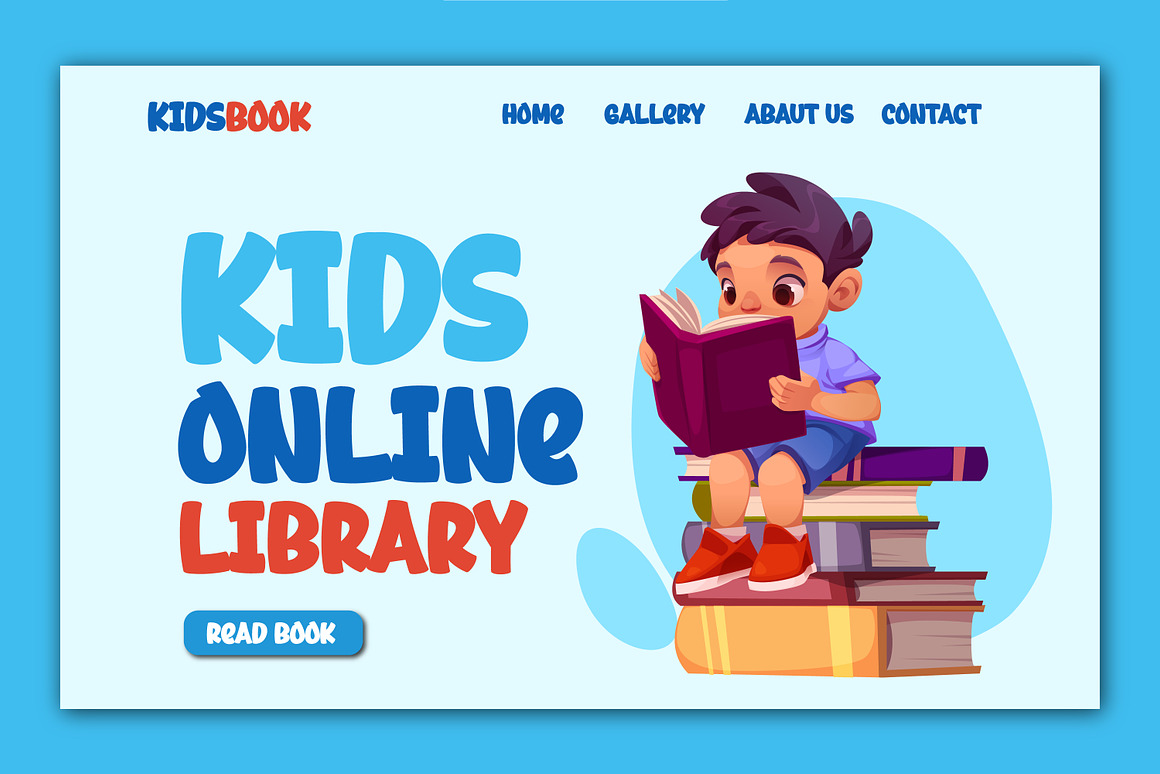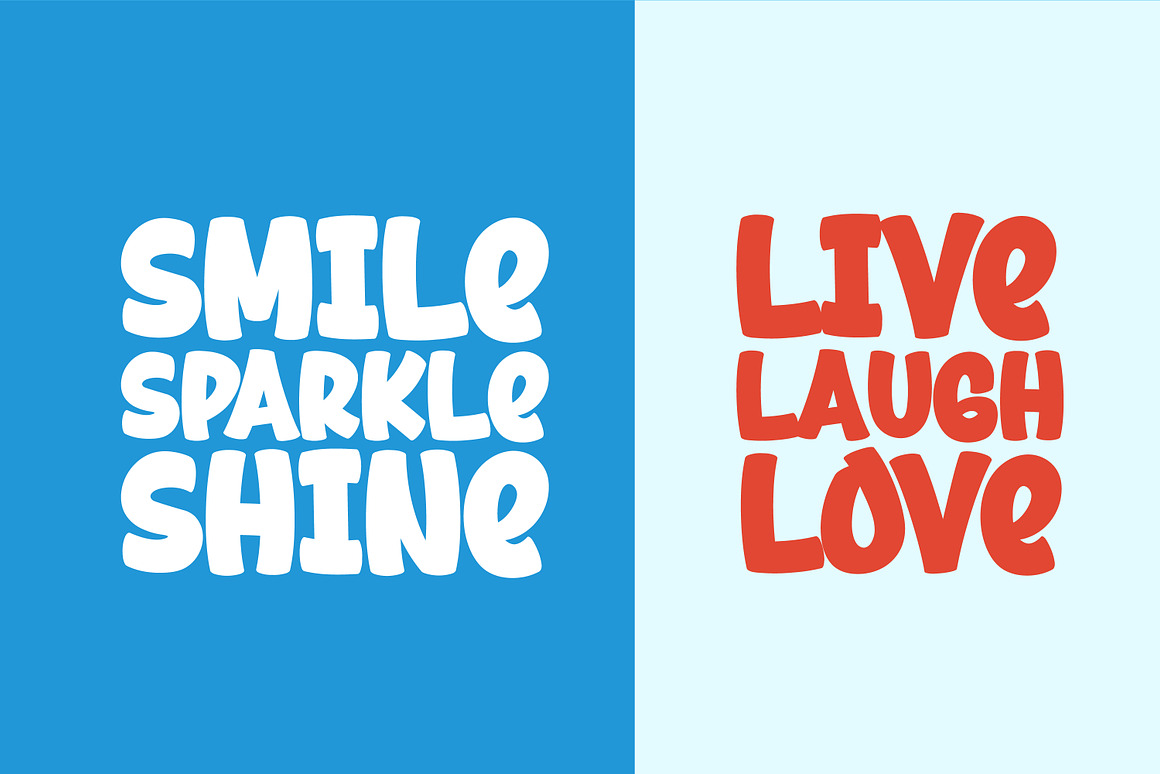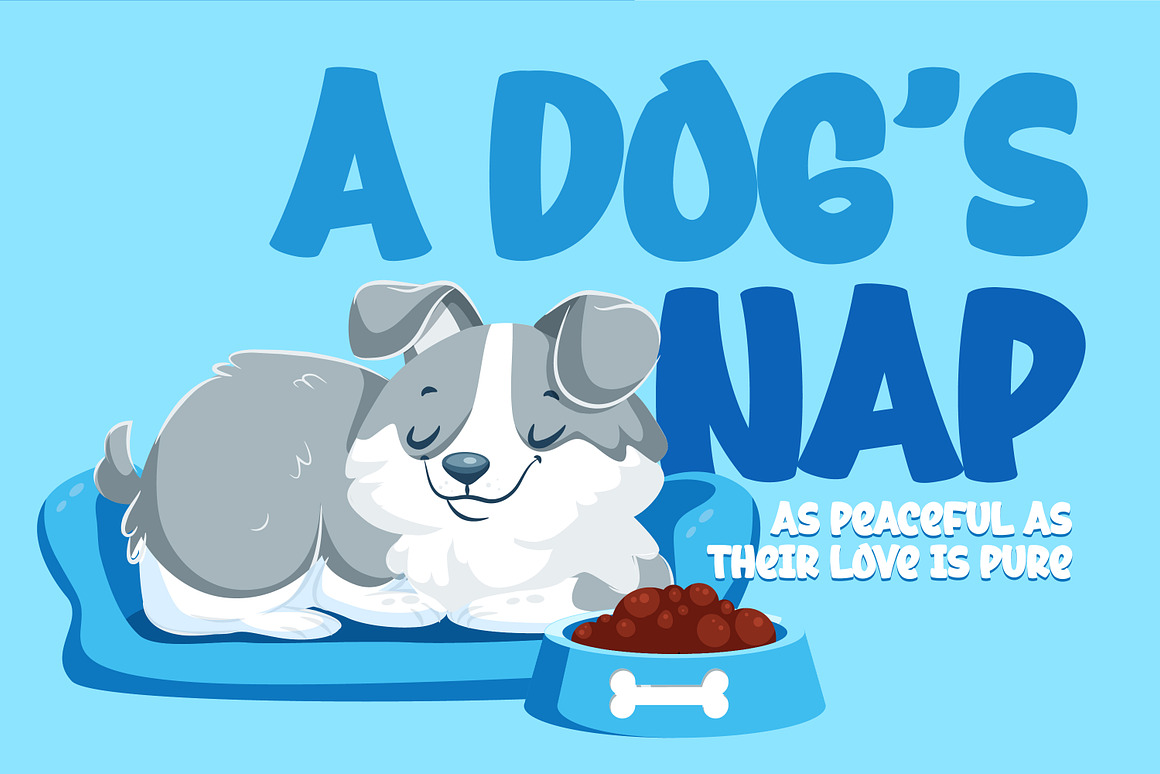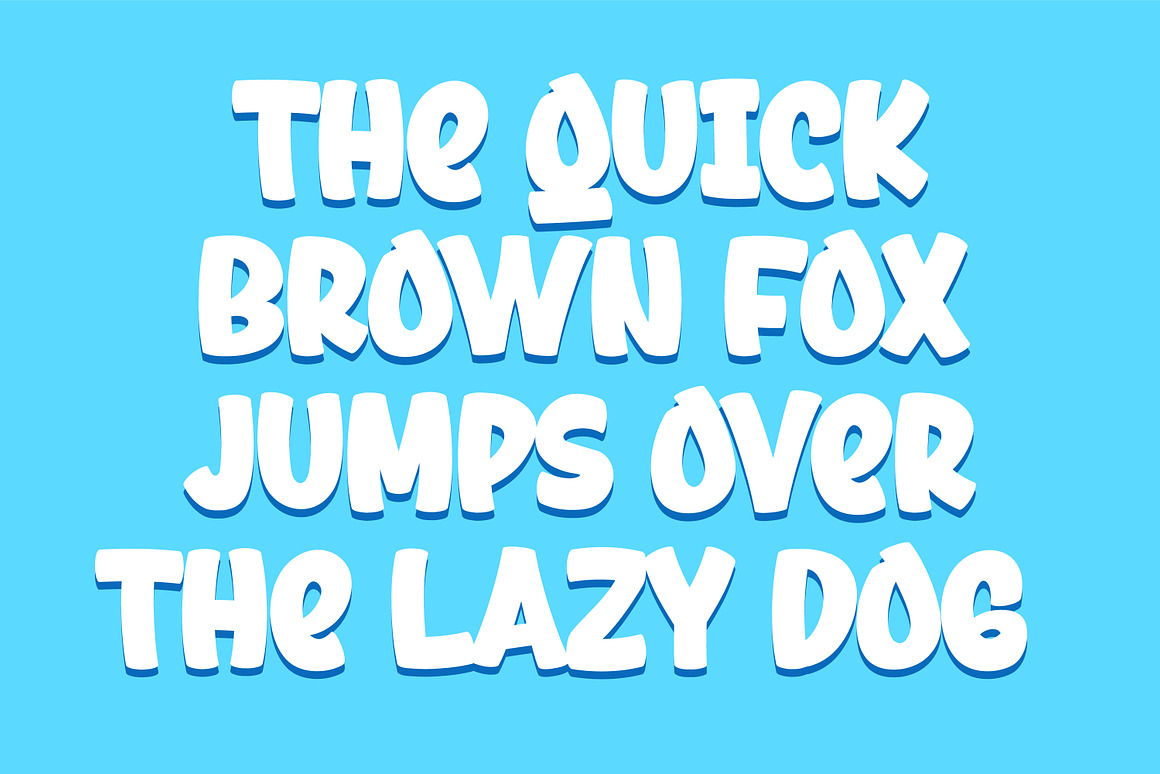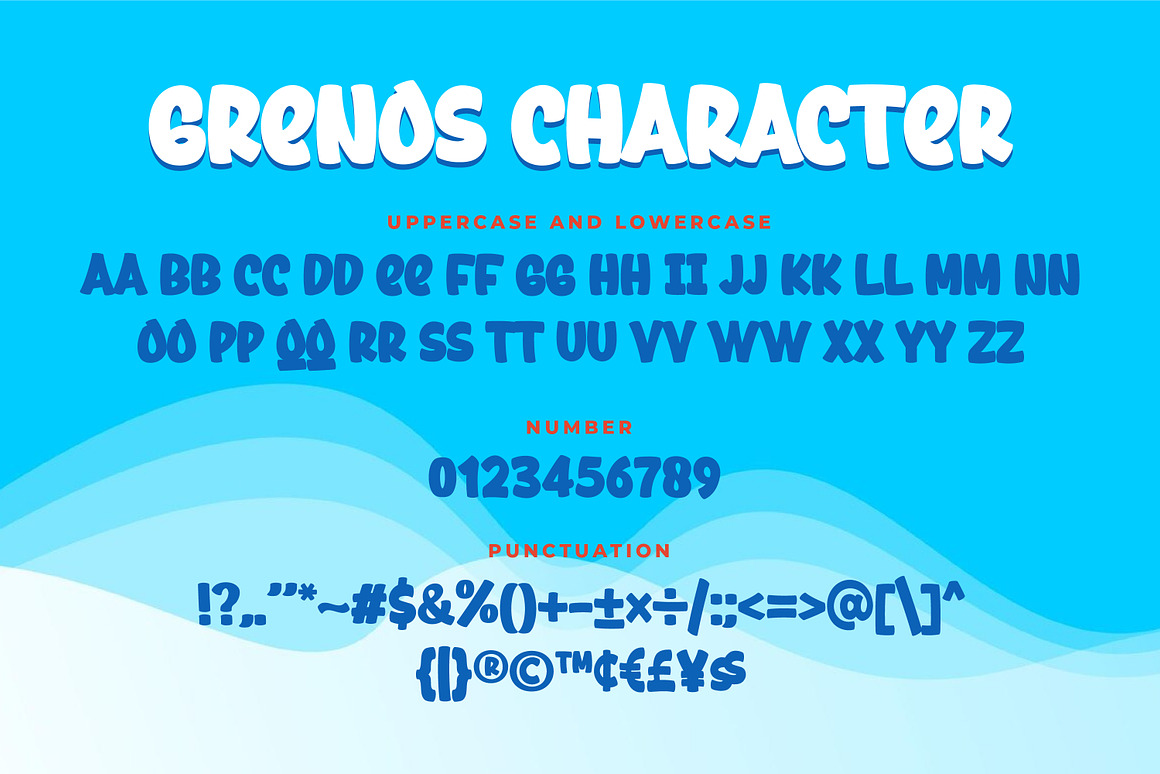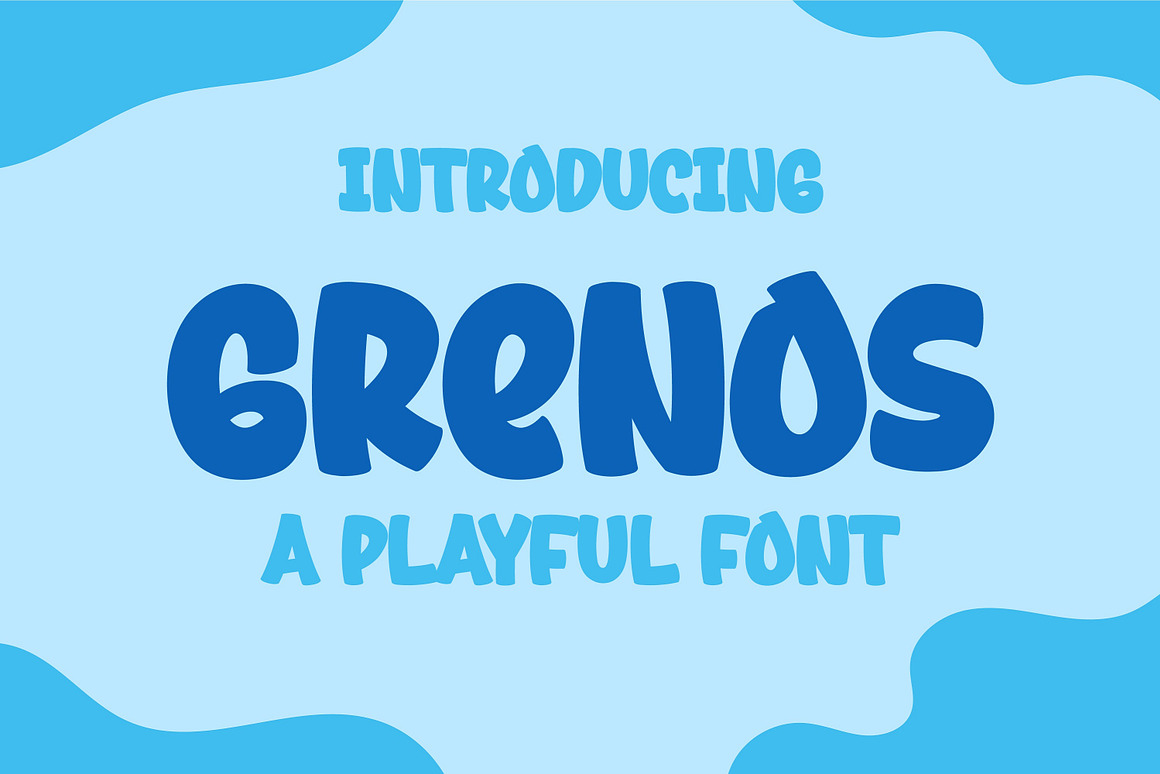
Grenos Playful Display Font
The playful display font that brings a fresh burst of energy to your designs! With its bold, dynamic shapes and fun-loving personality, Grenos is perfect for projects that need to stand out. Whether you're creating eye-catching posters, vibrant packaging, or whimsical branding, this font adds a lively, creative touch to every piece.